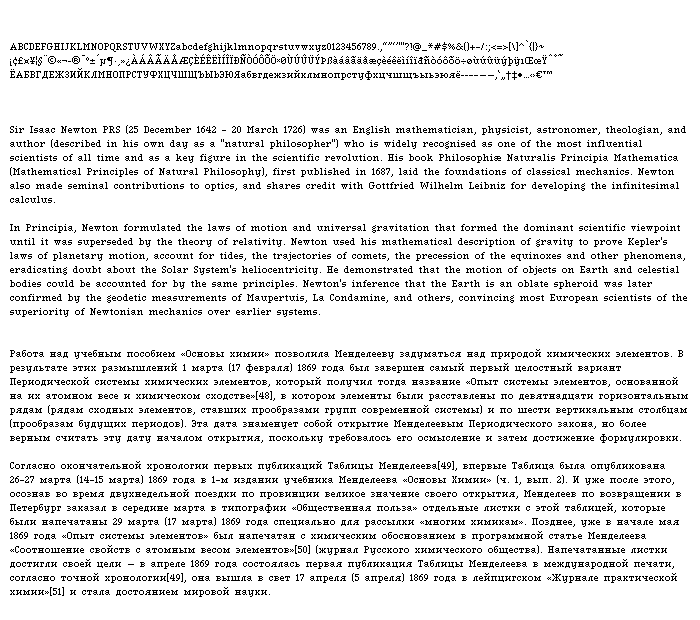
Character set and (English and Russian) sample text. Caps height: 7px, x-height: 5px, ascenders and descenders 2-2px respectively, diacritical marks: 3px, Total vertical dimension: 12px. Letter width: 3-9px. Spacing: 1px. No kerning.
Text samples with 2px spacing.